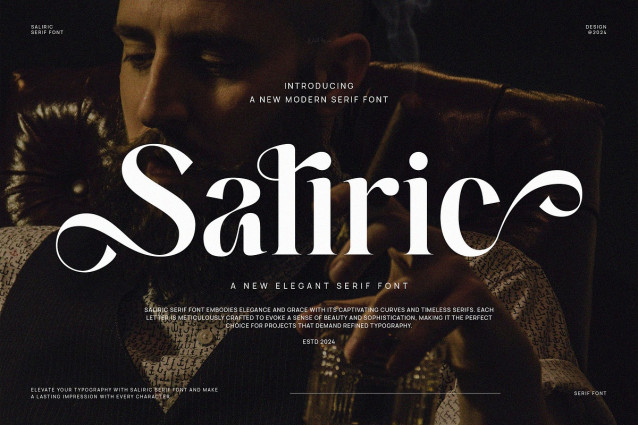
Saliric Font
Saliric Font, modern serif font with elegant style this is perfect for branding, logos, invitation, magazines, product packaging and more.